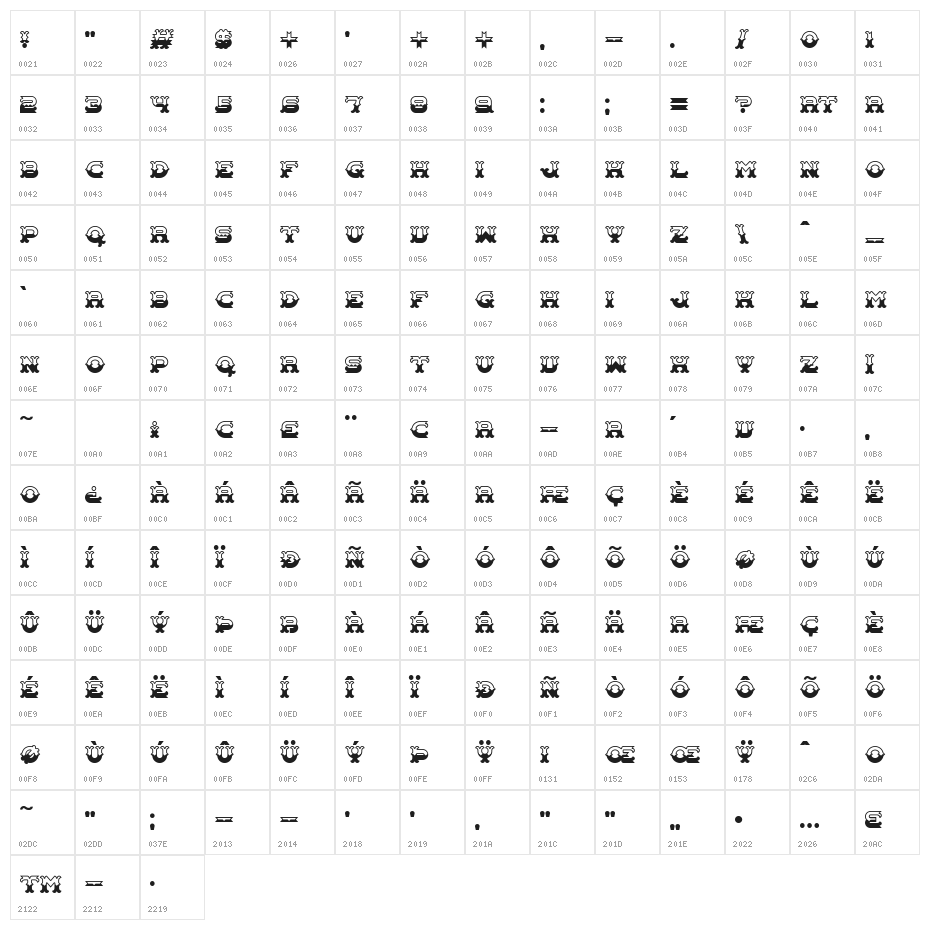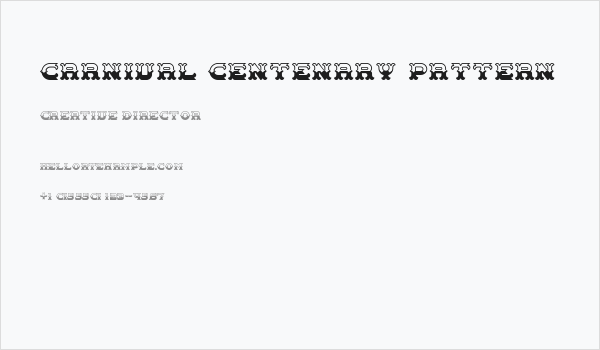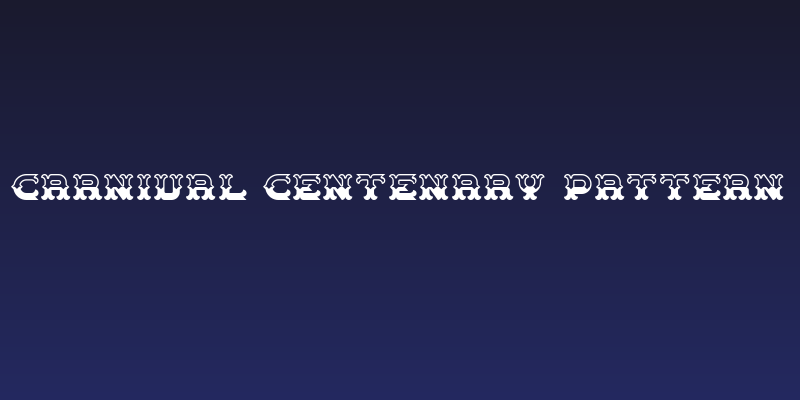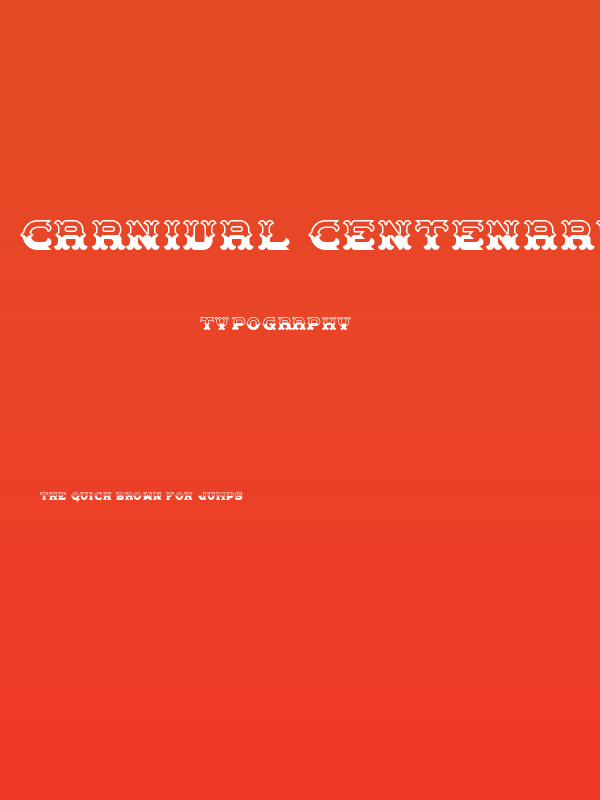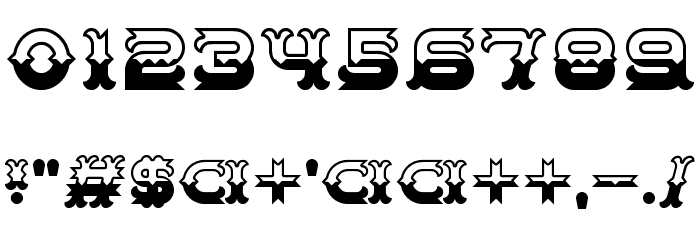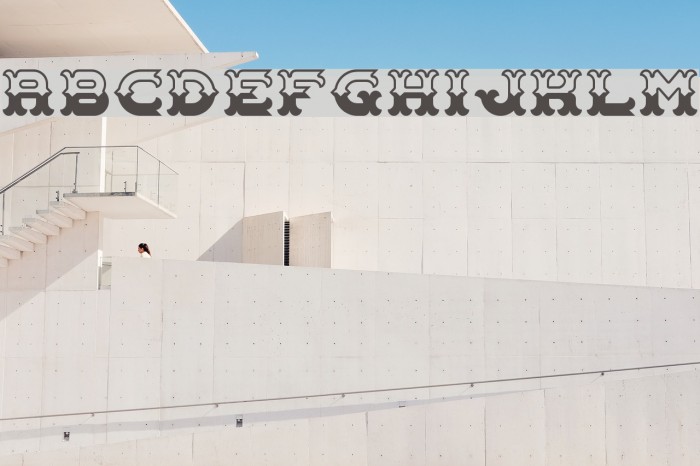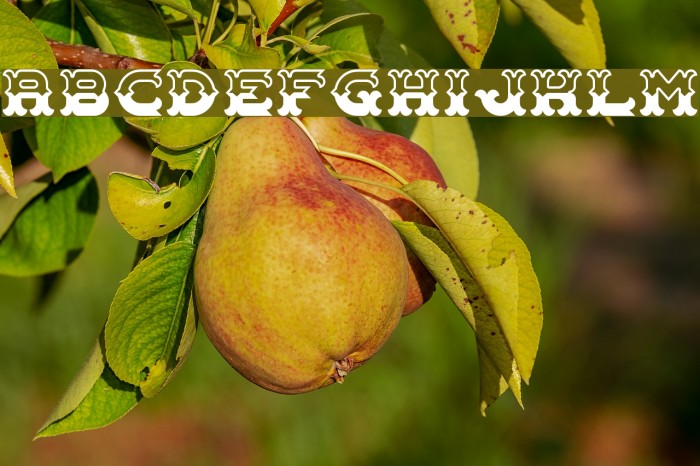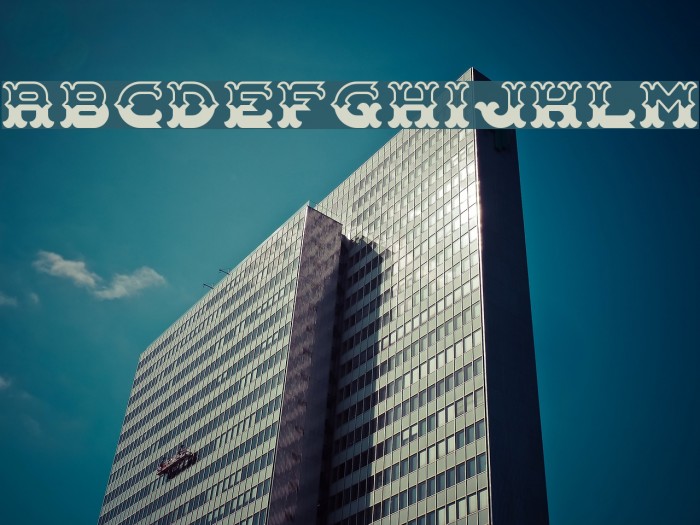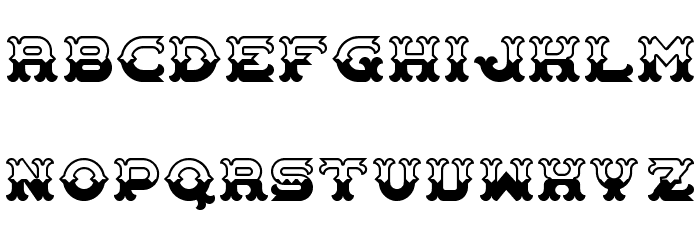
Carnival Centenary Pattern Font
Carnival Centenary Pattern Description
This font features a bold and decorative style with intricate patterns and flourishes that evoke a sense of festivity and celebration. The characters are designed with a high level of detail, incorporating shadow effects and ornamental elements that give them a three-dimensional appearance. The uppercase letters are particularly striking, with each character showcasing unique embellishments that enhance the overall visual impact. The numbers and special characters maintain the same decorative theme, ensuring consistency throughout the font. This font is ideal for projects that require a vibrant and eye-catching aesthetic.
| Proposed Projects | Ideal for event posters, carnival-themed graphics, festive invitations, and branding that requires a lively and ornamental touch. |